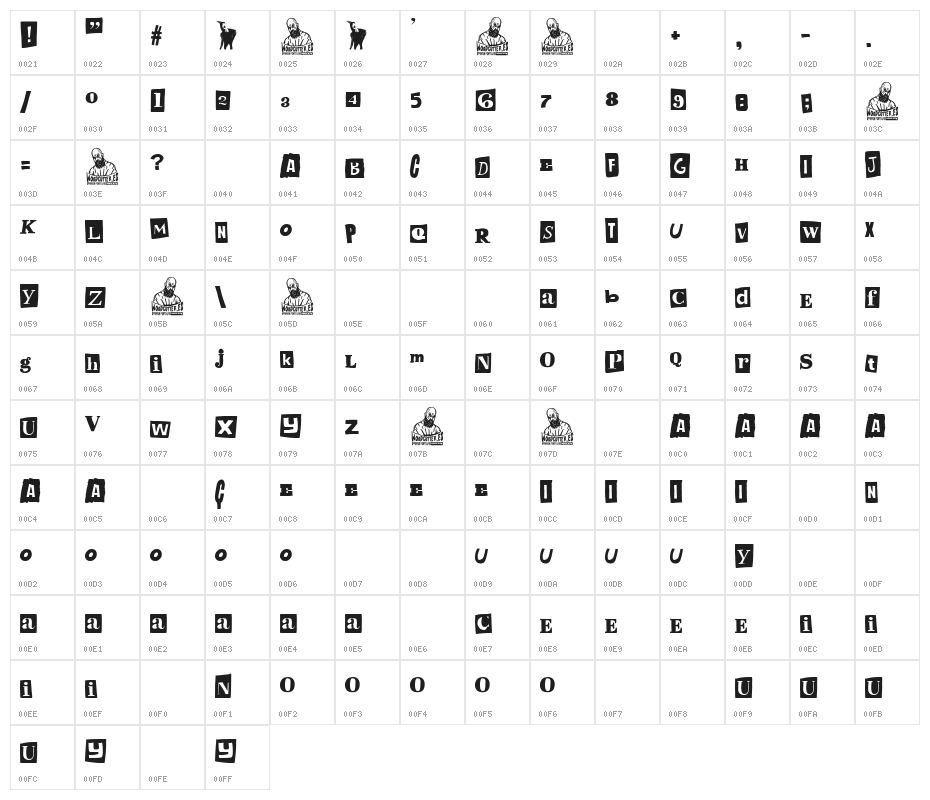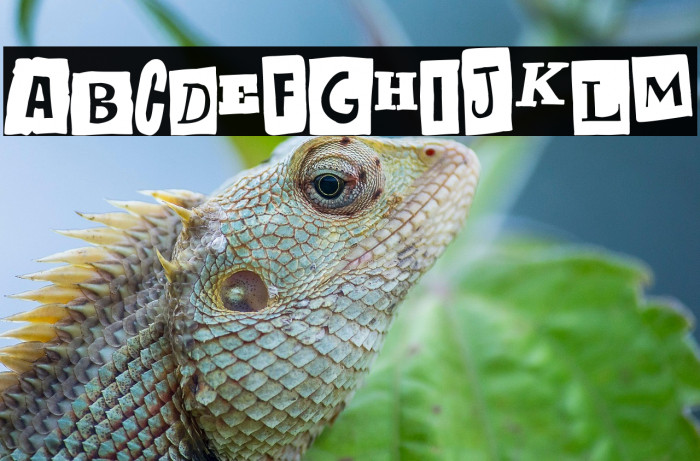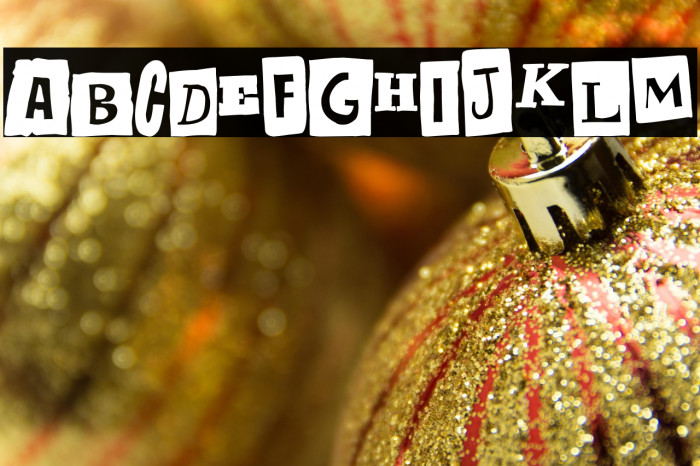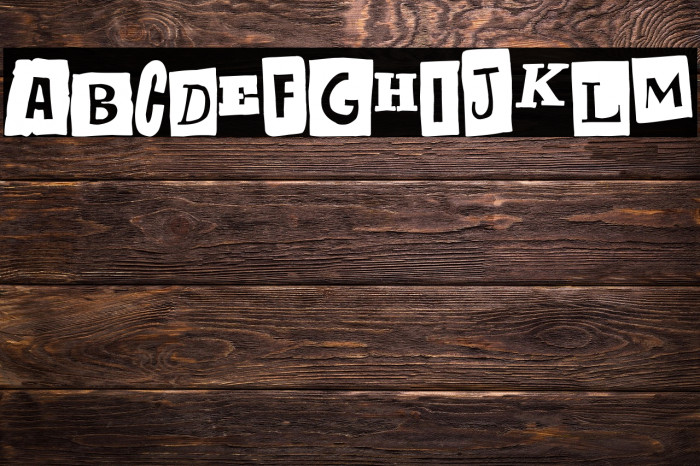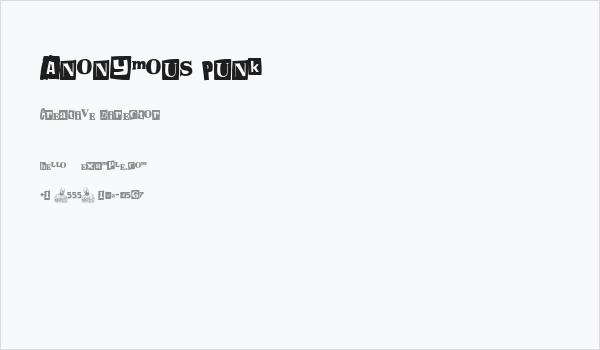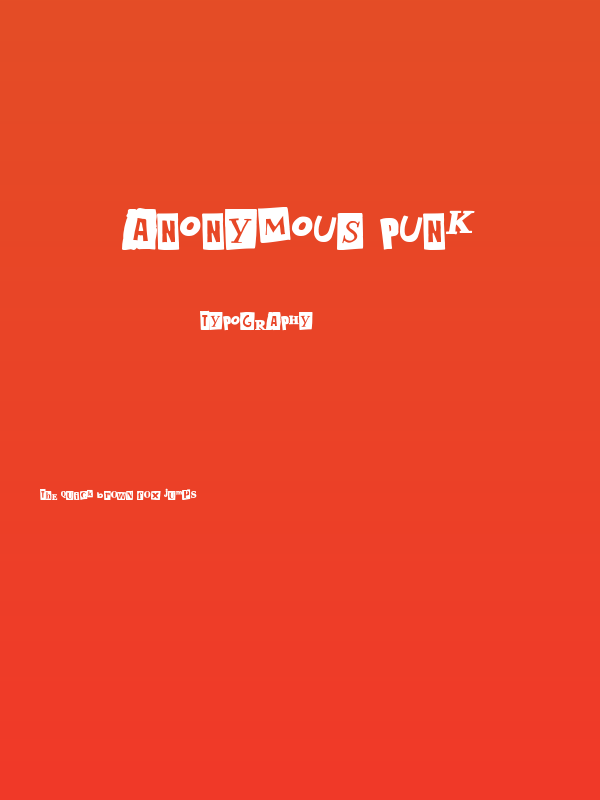
Anonymous Punk Font
Anonymous Punk Description
This font features a bold, eclectic style reminiscent of cut-out letters from magazines or newspapers, giving it a distinctly rebellious and punk aesthetic. Each character is enclosed in a black square or rectangle, creating a striking contrast with the white letters. The irregular shapes and varying sizes of the characters add to its chaotic and energetic feel, making it ideal for projects that require a bold statement. The font includes uppercase and lowercase letters, numbers, and a selection of special characters, all maintaining the same distinctive style.
| Overall Style | Punk, Rebellious, Eclectic |
| Use Case | Headlines, Posters, Album Covers |
| Proposed Projects | Ideal for music album covers, punk-themed posters, zines, or any project needing a rebellious, edgy look. |